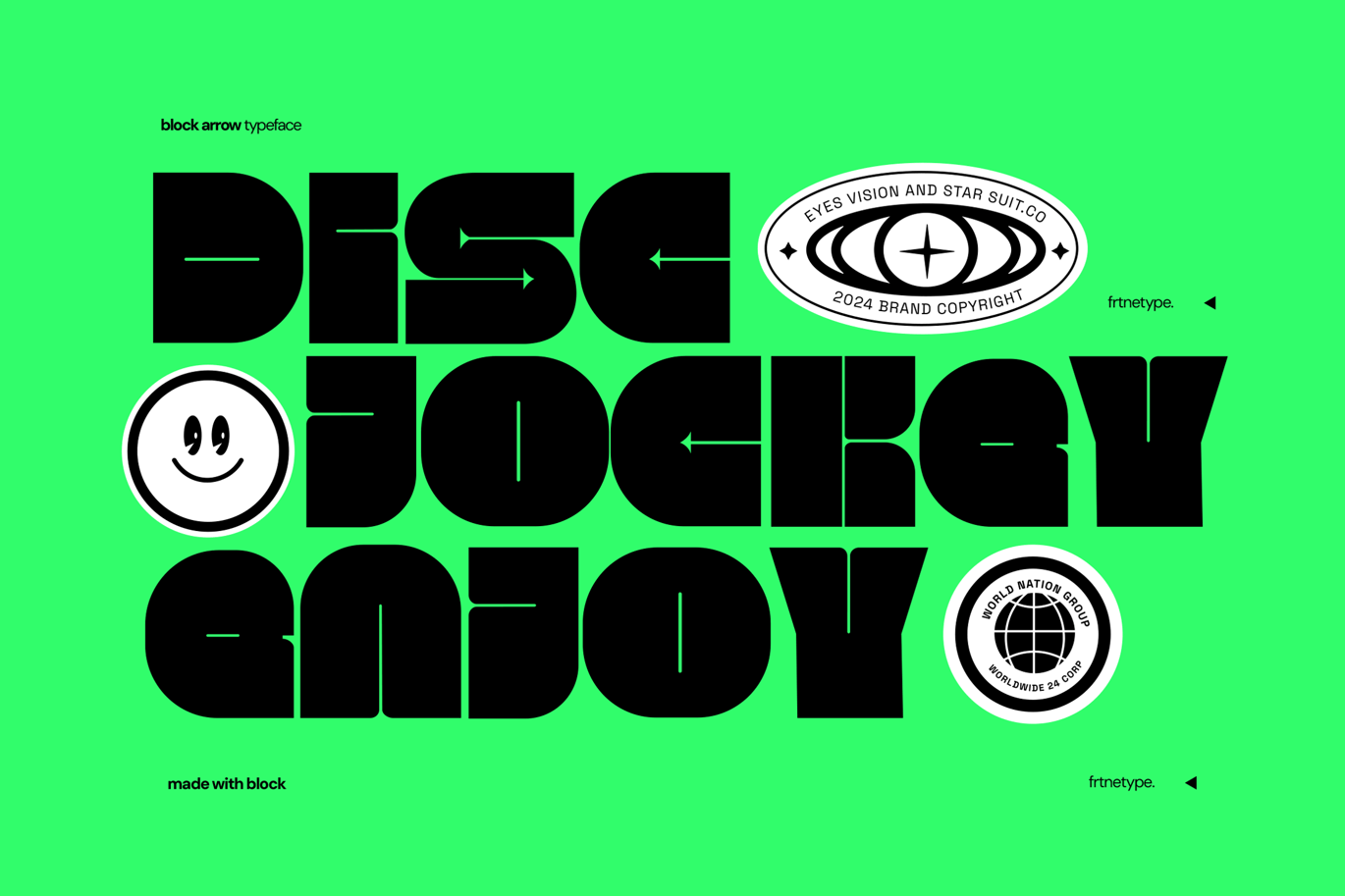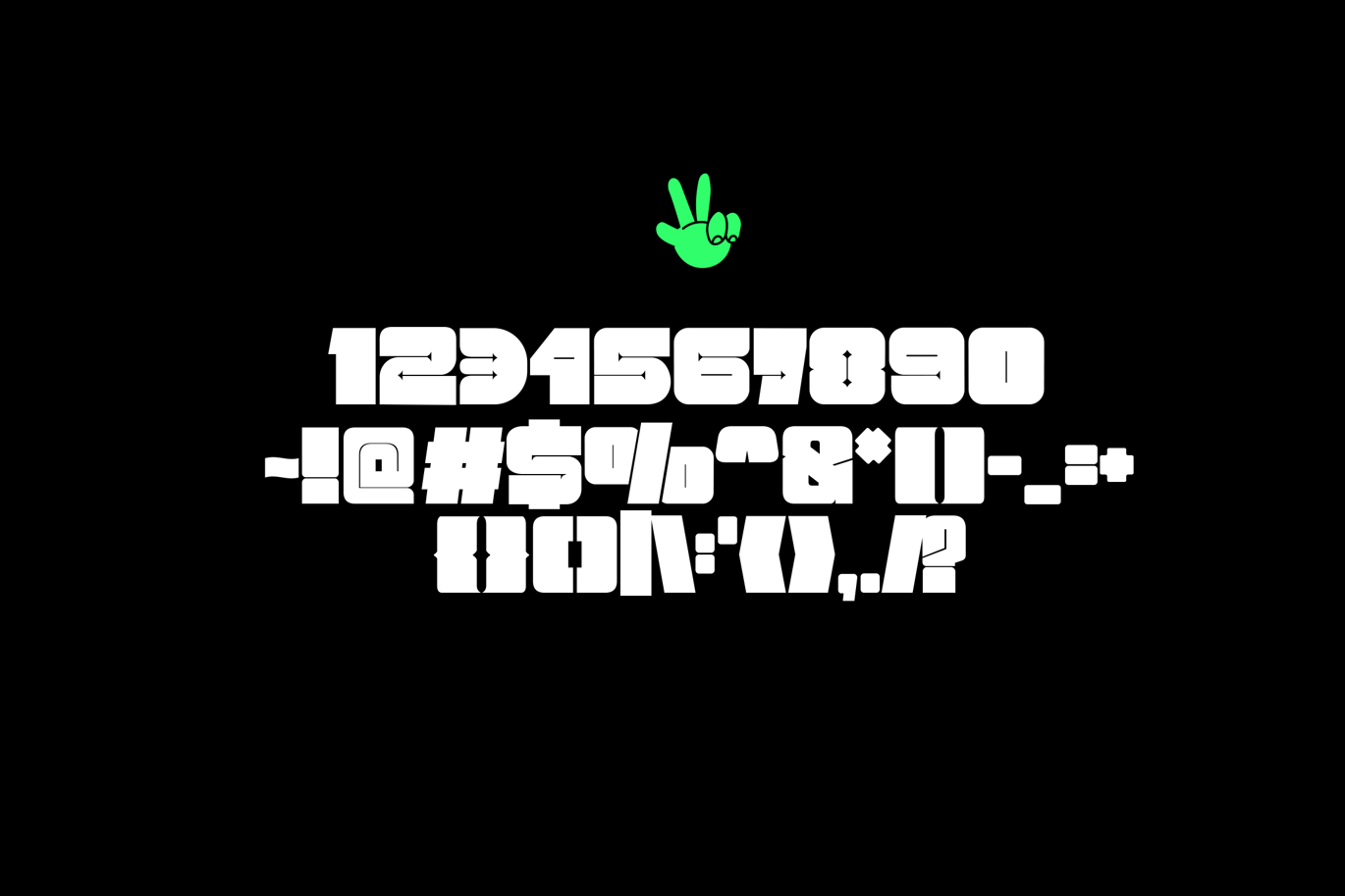
Marow Block is described by its maker as a mix of block and arrow shapes, and you can see it in the letters: wide, heavy bodies with small pointed tips sticking out of the corners. The crocodile mascot and the Disc Jockey Enjoy poster in the specimen set the tone. This is a fun font, not a serious one.
Best uses for Marow Block
- Stickers and badges
- DJ, club and party flyers
- Kids’ toys and snacks
- Cartoon and mascot branding
- YouTube thumbnails
Pair Marow Block with a simple, rounded sans. Nunito keeps body text friendly. Poppins is clean for subheads. For a playful accent, try short lines in Gochi Hand.
Marow Block Font